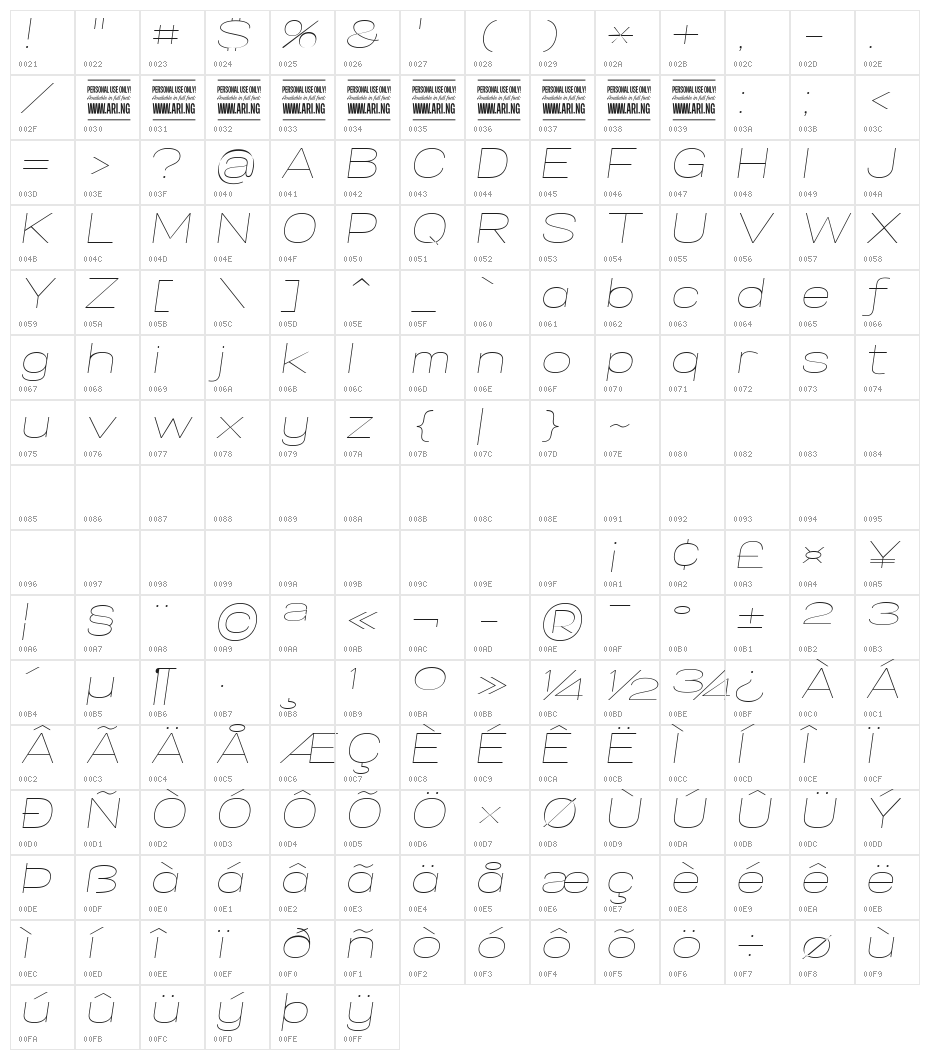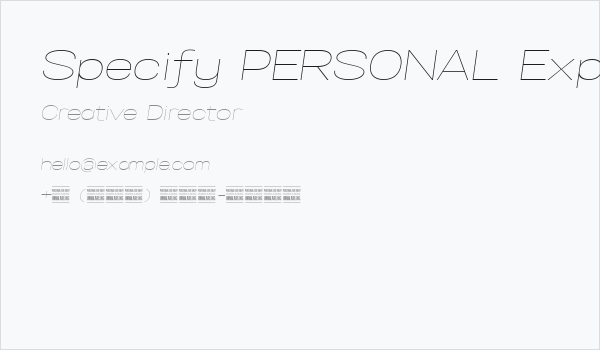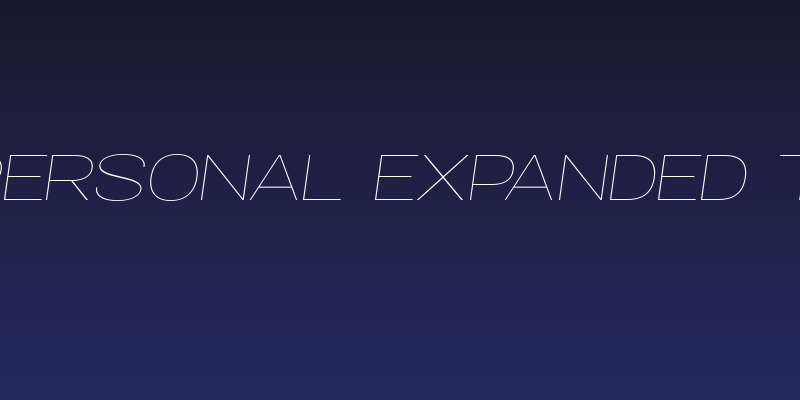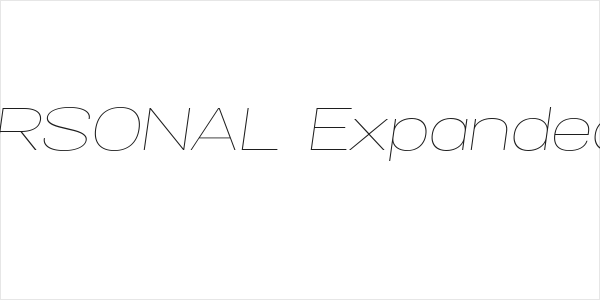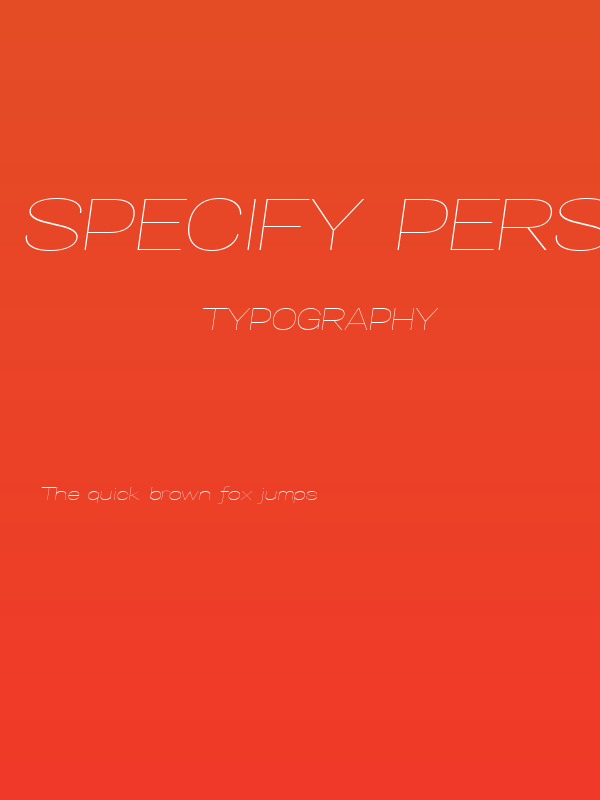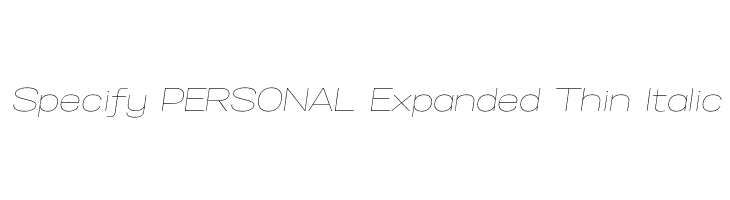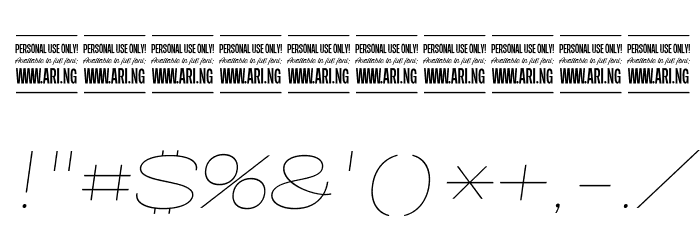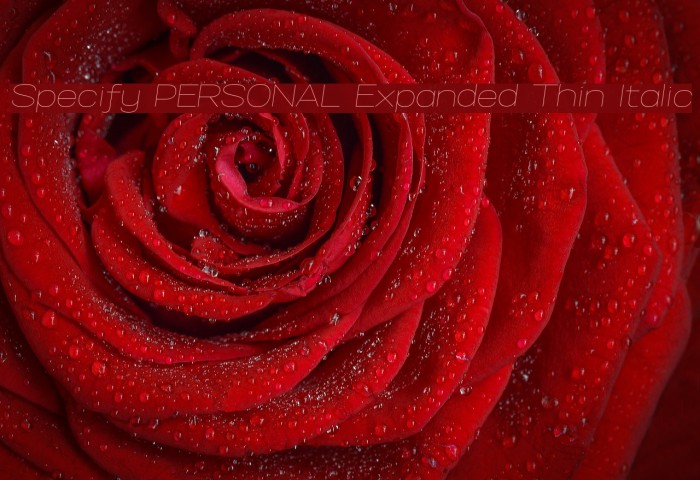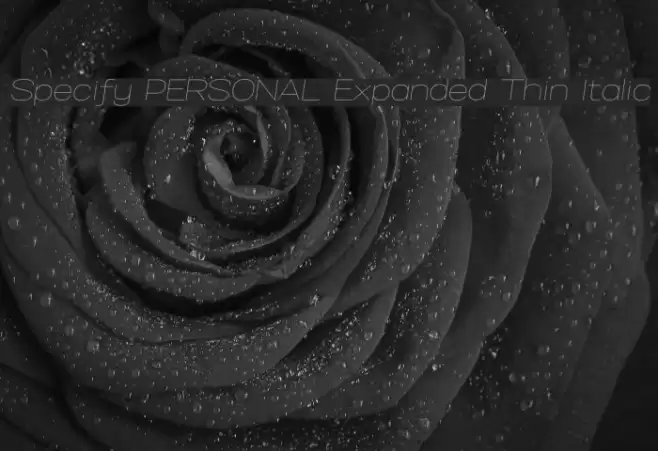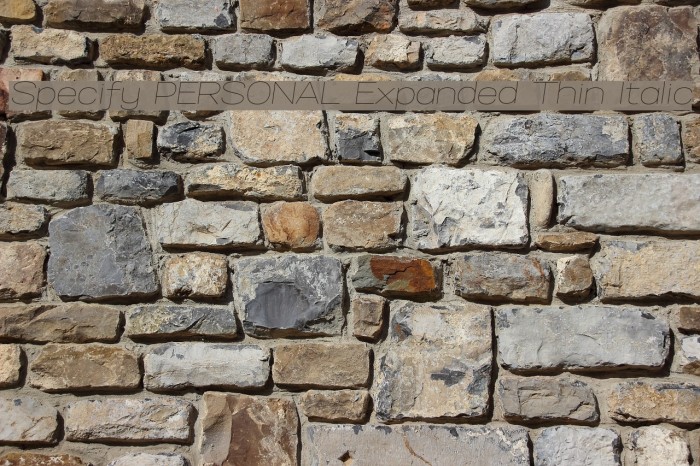
Specify PERSONAL Expanded Thin Italic Font
Specify PERSONAL Expanded Thin Italic Description
This font is characterized by its sleek, elongated letterforms and a distinctly modern aesthetic. The thin strokes and expanded width give it an airy and elegant appearance, while the italic style adds a dynamic and sophisticated touch. The uppercase and lowercase letters maintain a consistent flow, with smooth curves and sharp angles that enhance readability. The numerals and special characters are designed to complement the overall style, making it versatile for various applications. Its minimalistic design is perfect for creating a clean and contemporary look.
| Proposed Projects | Ideal for branding, editorial design, fashion magazines, and modern websites. |